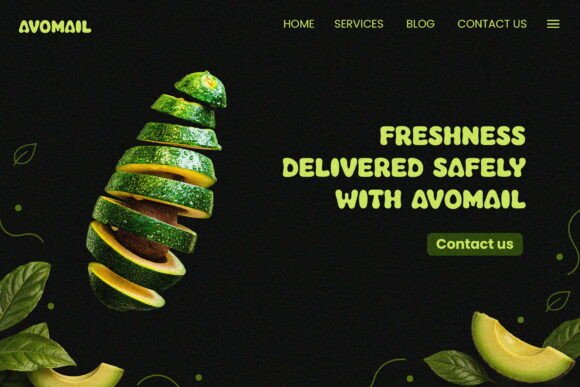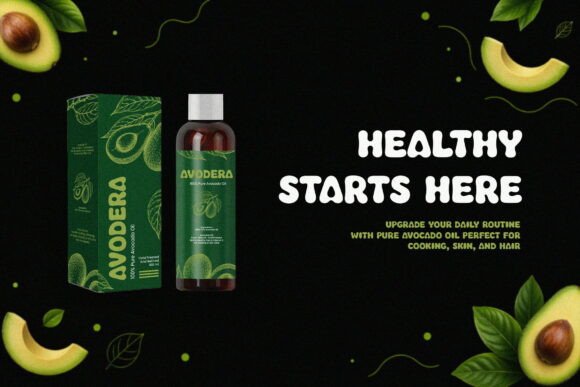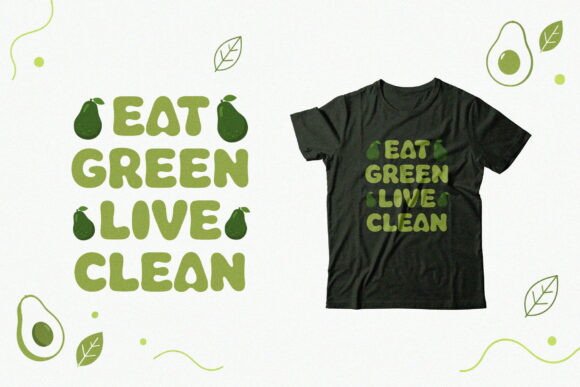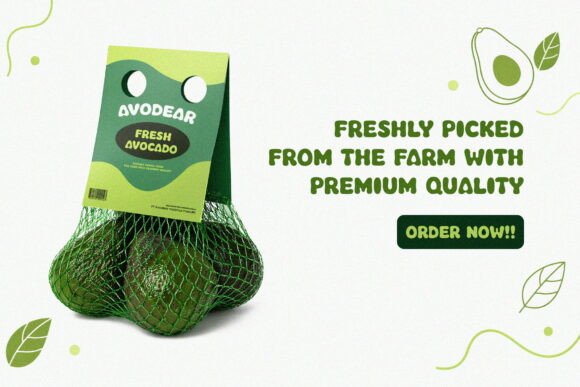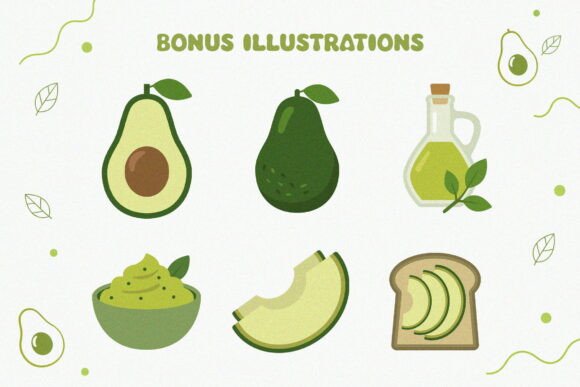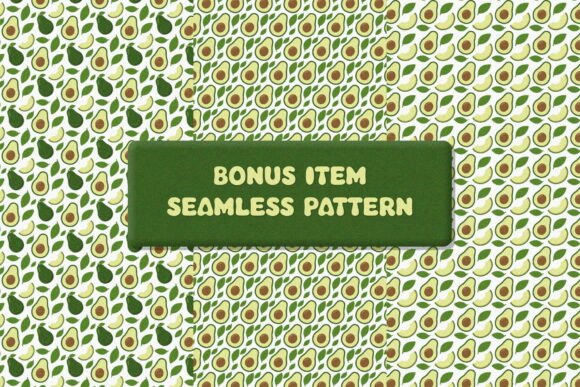
Introducing Avicoa: The Organic Avocado Font for Fresh and Friendly Designs
Are you looking for a unique font that captures the essence of freshness and sustainability? Look no further than Avicoa, the organic avocado font that’s perfect for designers and crafters seeking to create clean, friendly, and eye-catching designs. Inspired by the natural shape of avocados, Avicoa features smooth, rounded letterforms that bring a touch of whimsy and approachability to any project.
The Inspiration Behind Avicoa
Avicoa’s design is rooted in the organic and natural world. The font’s creator drew inspiration from the curvaceous shape of avocados, aiming to capture their smooth, rounded contours in a typographic form. The result is a font that exudes a sense of freshness, simplicity, and friendliness. Whether you’re designing a logo, packaging, or branding materials, Avicoa is the perfect choice for projects that require a touch of natural charm.
Key Features of Avicoa Font
- Unique Avocado-Inspired Design: Avicoa’s letterforms are carefully crafted to resemble the natural shape of avocados, giving your designs a distinctive and memorable look.
- Organic and Fresh Feel: The font’s smooth, rounded edges create a sense of approachability and friendliness, perfect for brands that want to convey a sense of sustainability and eco-friendliness.
- Clean and Eye-Catching: Avicoa’s clean lines and simple design make it easy to read and visually appealing, ensuring your designs stand out from the crowd.
- Versatile: Avicoa is suitable for a wide range of design projects, from branding and logo design to packaging, food & beverage products, organic brands, skincare, merchandise, and modern lifestyle designs.
Use Cases for Avicoa Font
Avicoa’s versatility makes it an excellent choice for various design projects. Here are some use cases where Avicoa shines:
- Branding and Logo Design: Create a lasting impression with a unique and memorable logo that showcases your brand’s personality.
- Packaging Design: Stand out on store shelves with eye-catching packaging that features Avicoa’s fresh and organic design.
- Food & Beverage Products: Perfect for labeling and packaging food and beverage products that emphasize natural ingredients and sustainability.
- Organic Brands: Avicoa’s eco-friendly vibe makes it an excellent choice for branding and marketing materials for organic and sustainable products.
- Skincare and Wellness: Convey a sense of natural care and wellness with Avicoa’s soothing and organic design.
- Merchandise and Lifestyle Designs: Create trendy and stylish merchandise, such as t-shirts, mugs, and tote bags, that feature Avicoa’s unique design.
Bonus Graphics and Why Avicoa?
When you choose Avicoa, you don’t just get a font – you also receive a set of bonus graphics that can enhance your designs. These additional resources help you create cohesive and engaging visuals that elevate your brand’s storytelling.
So, why choose Avicoa? With its distinctive avocado-inspired design, organic feel, and versatility, Avicoa offers a unique combination of style and functionality. Whether you’re a designer, crafter, or entrepreneur, Avicoa provides the perfect tools to bring your creative vision to life.
Avicoa – Organic Avocado Font + Bonus Graphics is more than just a font; it’s a design solution that brings a fresh and friendly perspective to your projects. With its unique design, versatility, and bonus graphics, Avicoa is an excellent choice for designers and crafters seeking to create clean, eye-catching, and engaging designs. Try Avicoa today and discover how this organic avocado font can elevate your brand’s visual identity!